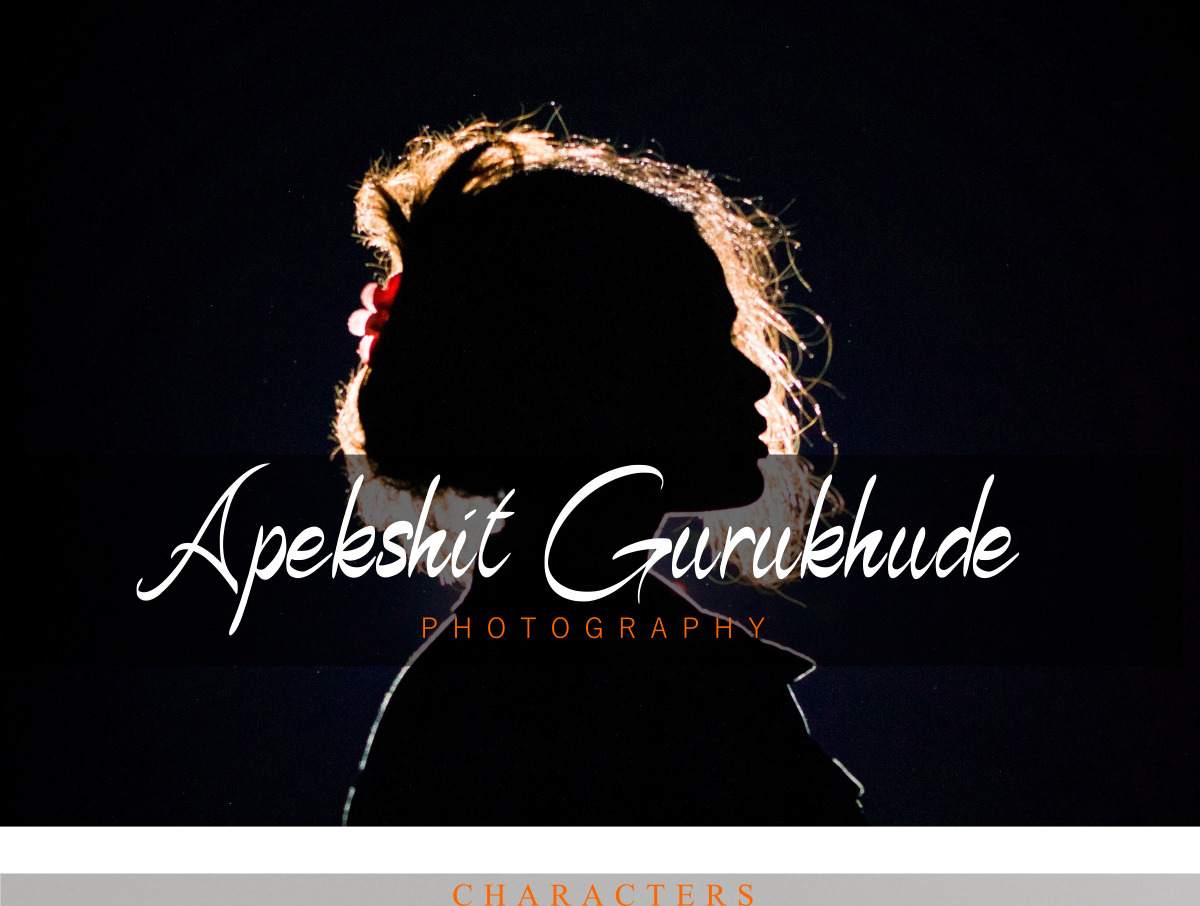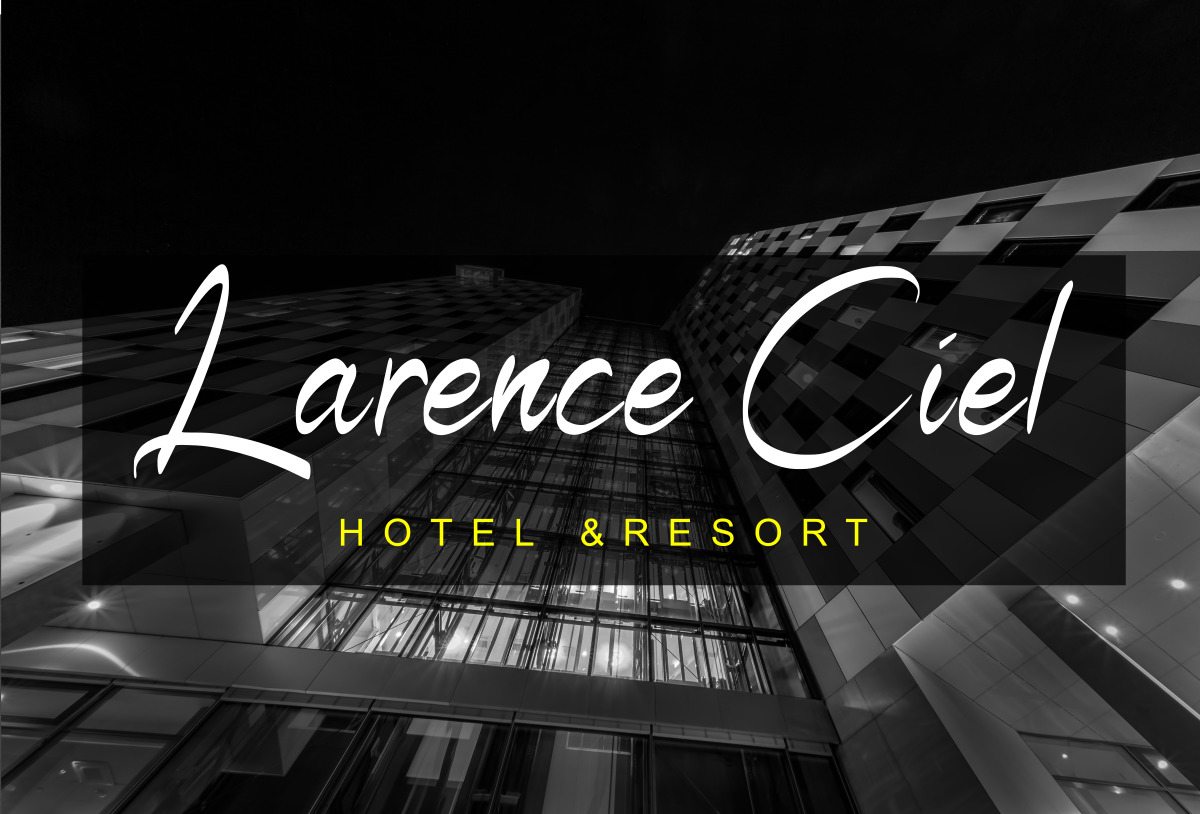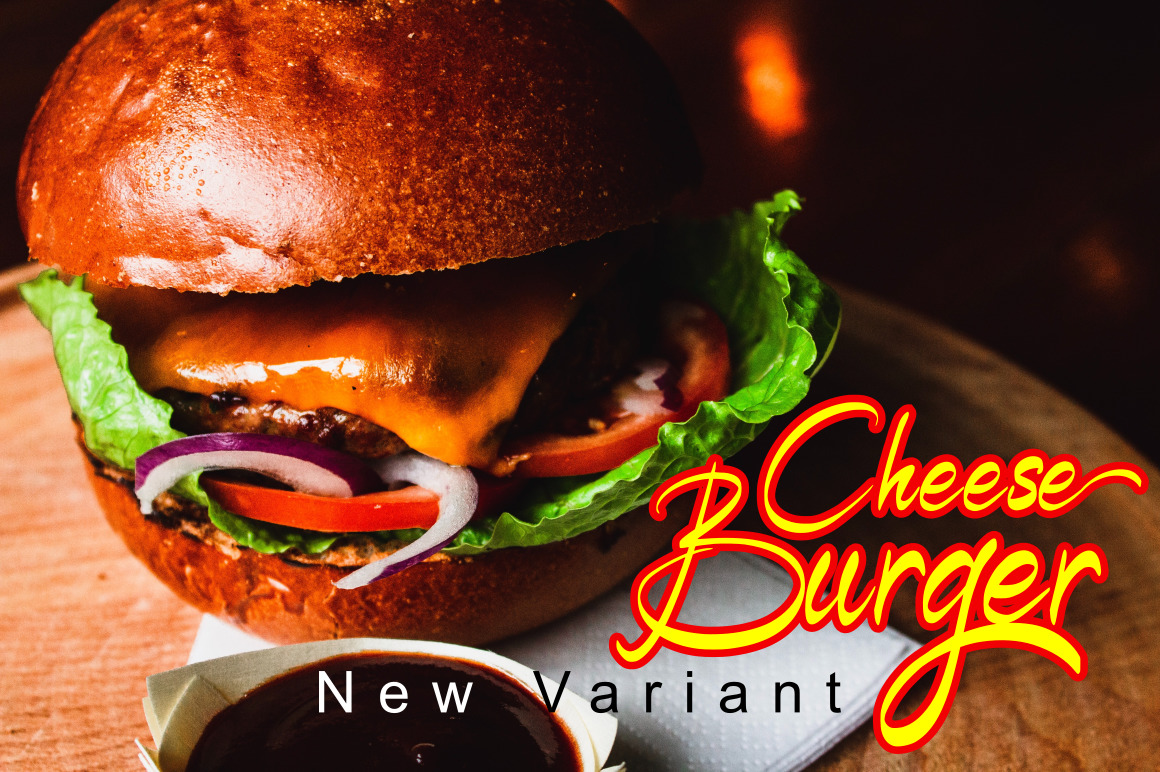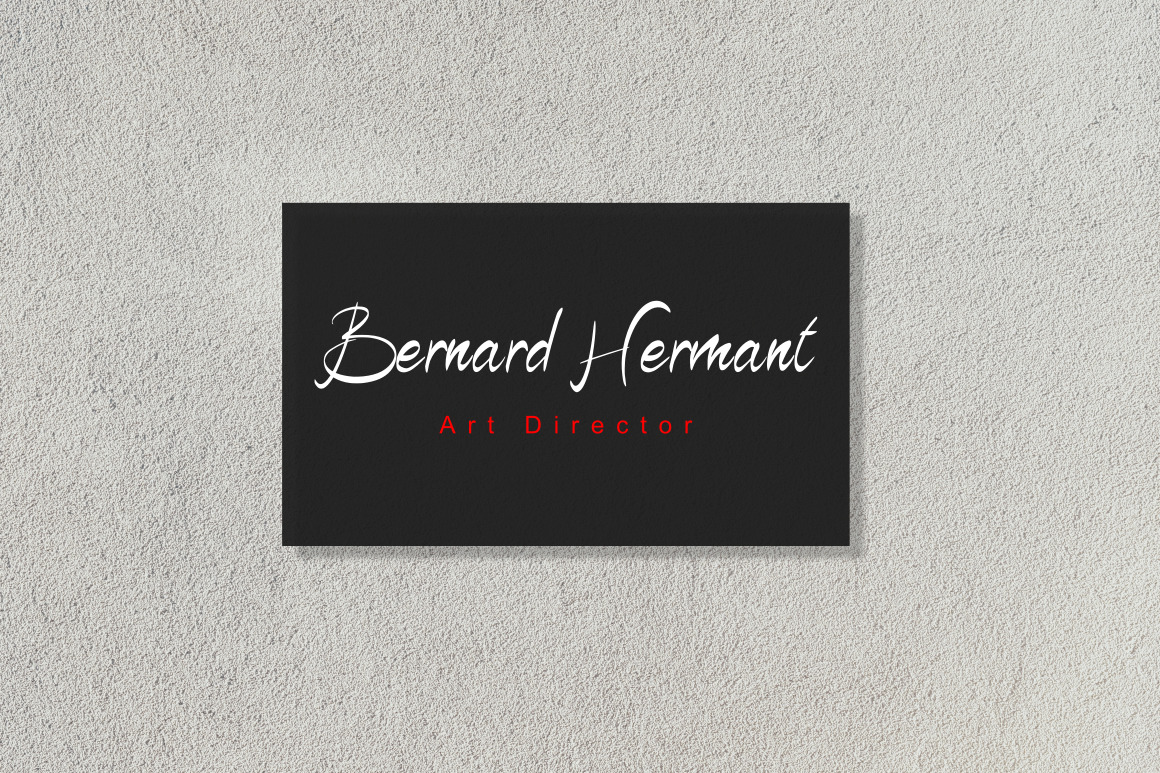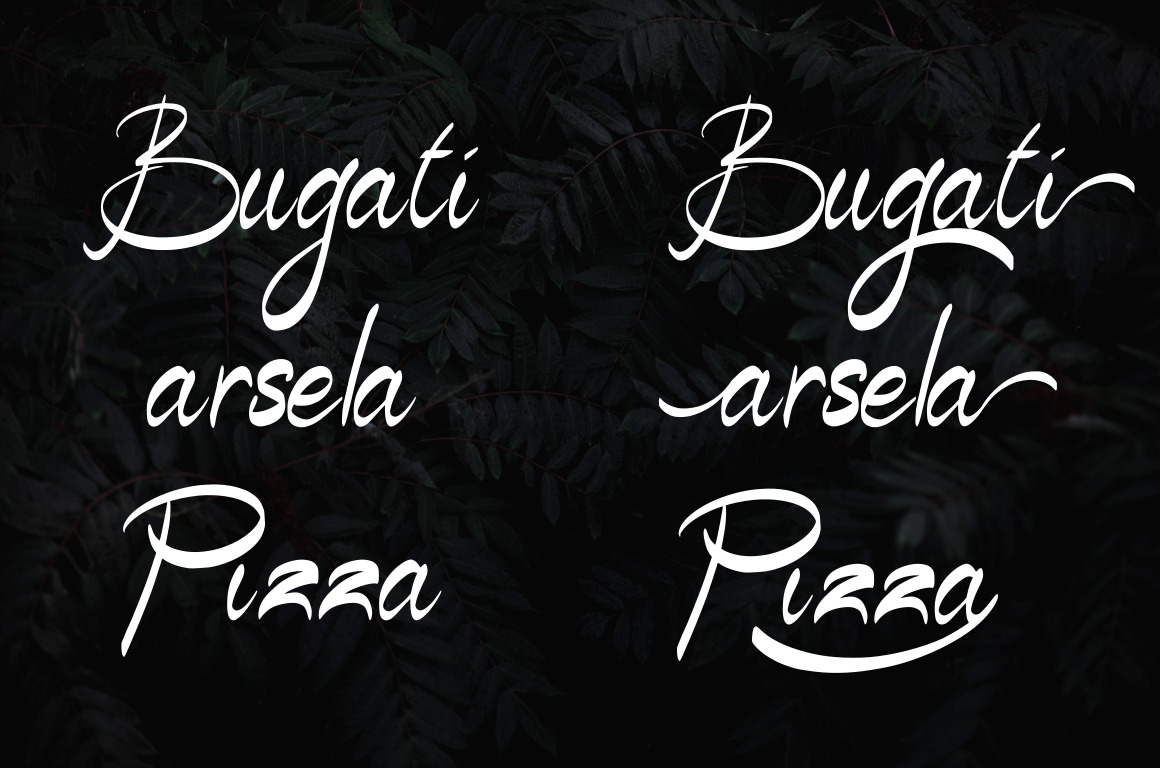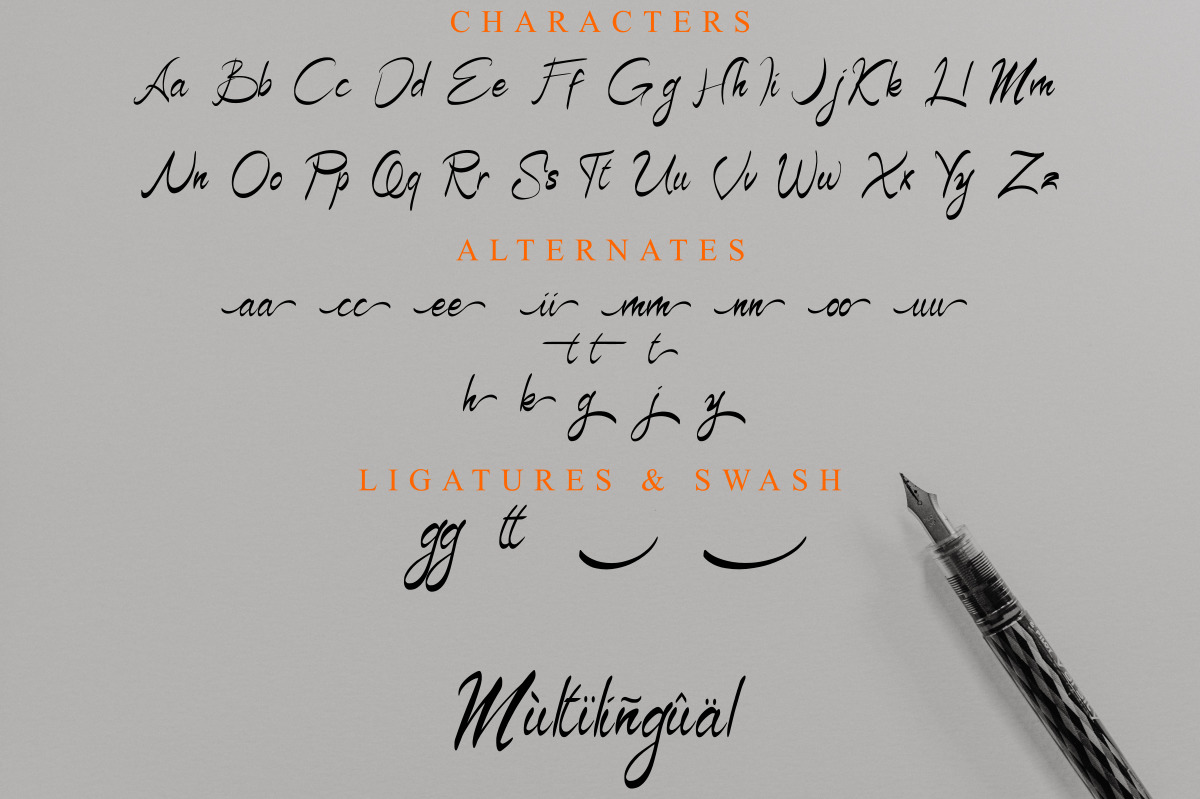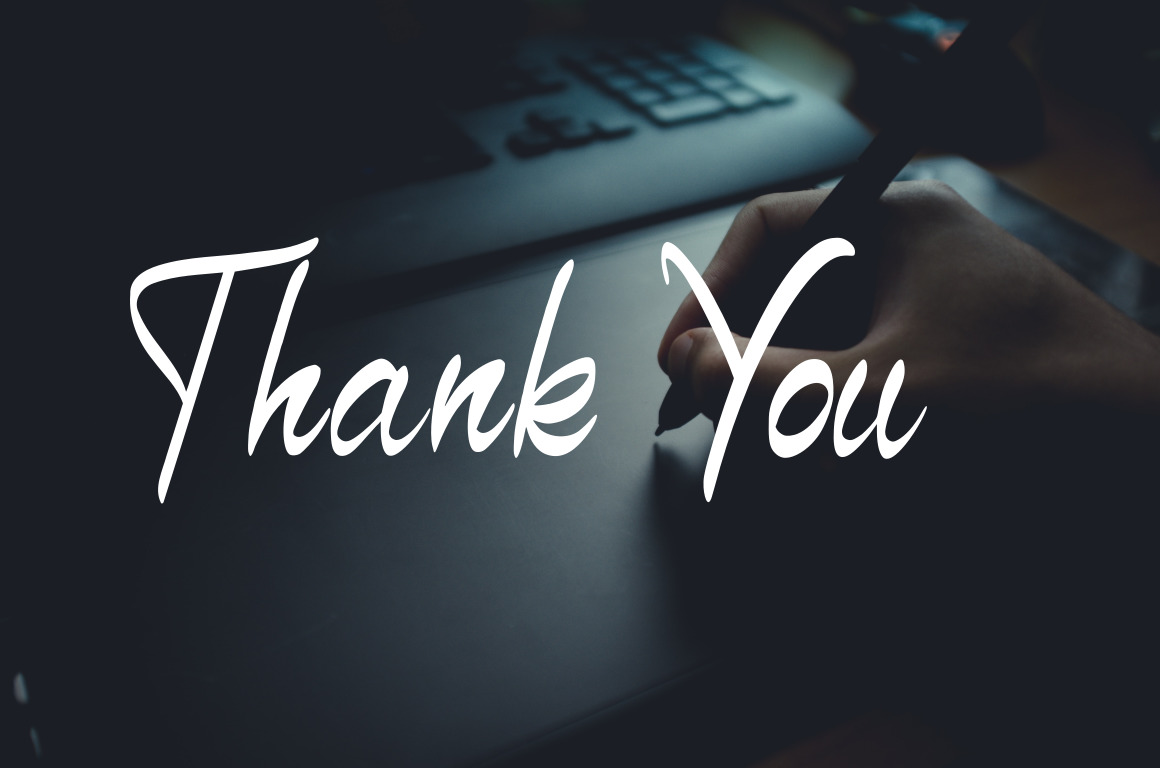
Signature Font
Signature Font script is modern handmade font, dynamic and also has beautiful opentype features. Signature Font Script is easily to use for your work ; Branding, Logo Design, Lettering, Clothing, Poster and others.
Signature Font Script Includes:
Opentype Features (Ligature, Alternate, Swash, Stylistic Sets)
Multilingual Support ( Danish,Finnish,English, Spanish,Dutch,German,Icelandic,Italian, Norwegian,Portuguese,Indonesian, Swedish)